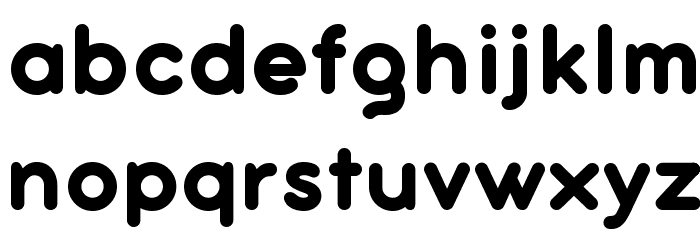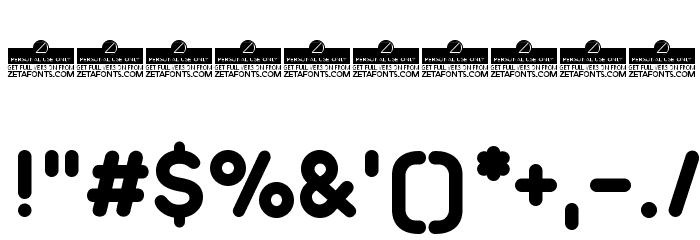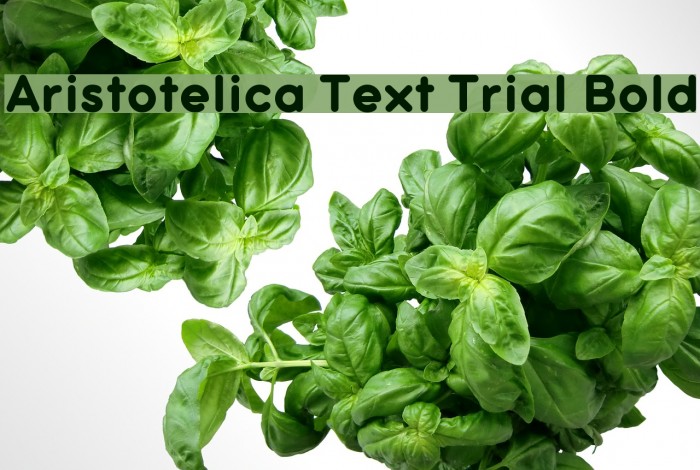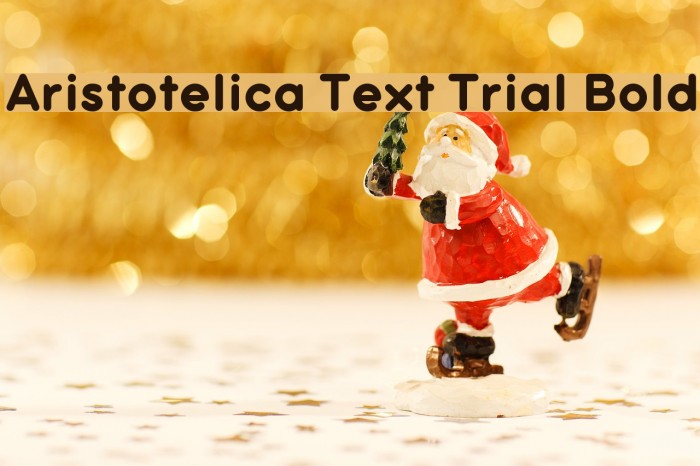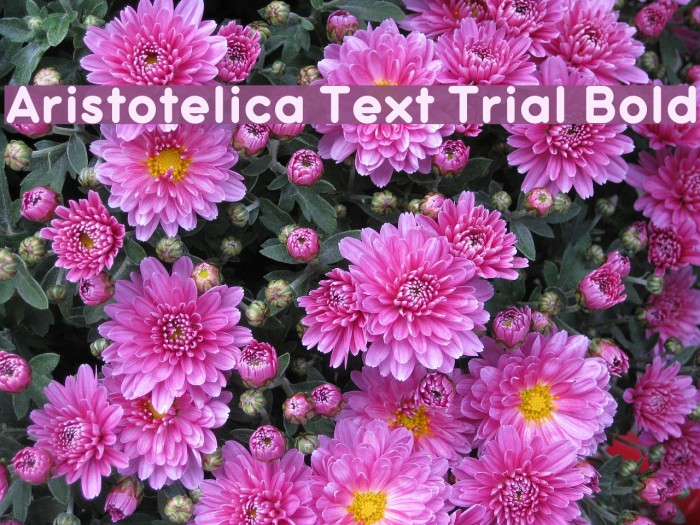
Aristotelica Text Trial Bold Font
This font features a bold, rounded sans-serif style with a modern and clean appearance. The characters are uniform in width, contributing to a balanced and harmonious look. The rounded edges give it a friendly and approachable feel, making it suitable for a variety of design contexts. The uppercase and lowercase letters maintain a consistent weight, ensuring readability and clarity. The numerals and special characters are designed to match the overall style, providing a cohesive visual experience. The font's simplicity and boldness make it versatile for both digital and print media.
A bold, rounded sans-serif font with a modern and friendly appearance.
- Proposed Projects: Ideal for branding, advertising, headlines, and digital interfaces where a modern and approachable look is desired.
- Use Case: Headlines, Logos, Digital Interfaces